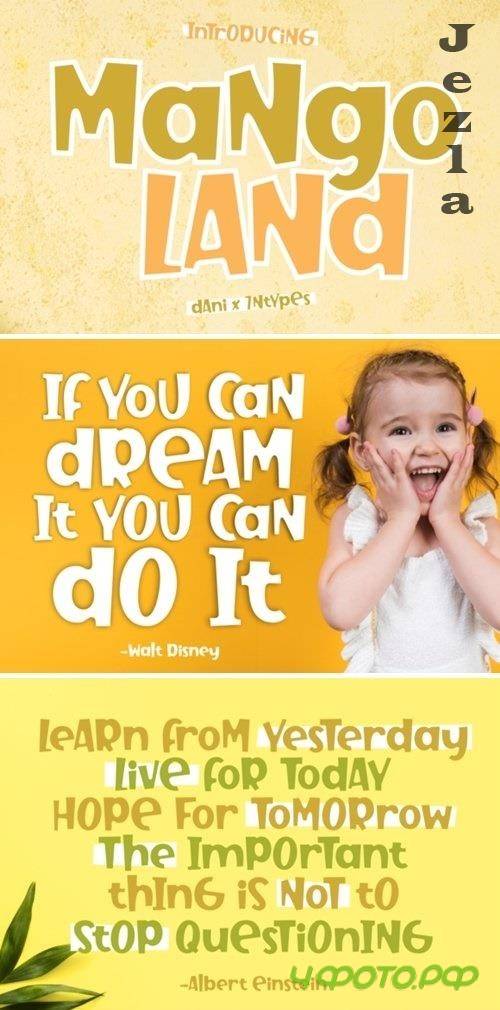
Mango Land Font
Mango Land is a beautiful display font. This fantastic typeface is best suited for headlines of all sizes, as well as for blocks of text that have both maximum and minimum variations. Whether it’s for web, print, moving images or anything else – Mango Land will look spectacular.